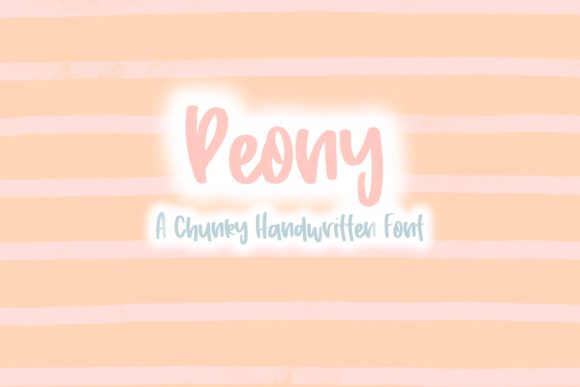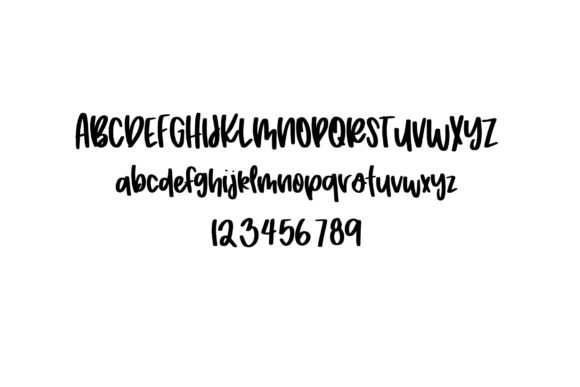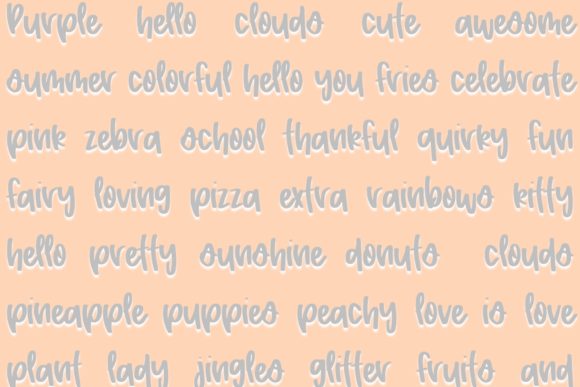
About Peony Font
Peony is a cute and quirky handwritten font. It will add an incredibly joyful touch to your designs. Add this beautiful font to each of your creative ideas and notice how it makes them stand out!